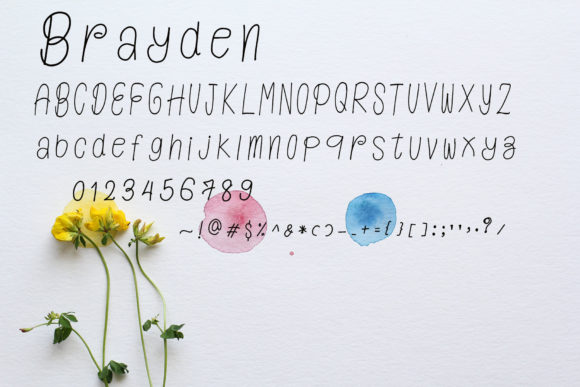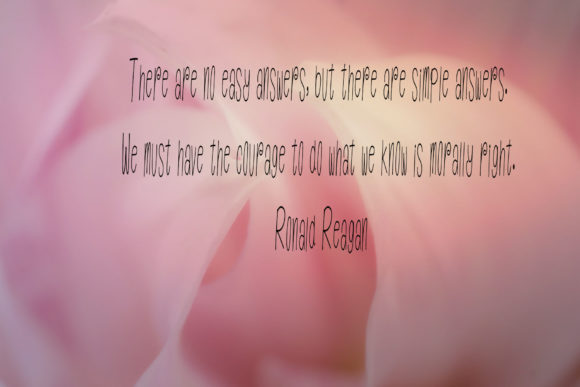
The Brayden Font: A Friendly and Versatile Companion for Your Creative Projects
I’ll never forget the moment I stumbled upon the Brayden font. I was working on a DIY project, pouring my heart and soul into creating beautiful, handmade cards for a special occasion. But as I sat in front of my computer, scrolling through font after font, I just couldn’t find the right one. That was until I discovered Brayden – a cute and casual handwritten font that instantly captured the friendly and approachable feel I was looking for.
An Honest Review: The Good, the Great, and the Quirky
What I Love About Brayden ✨
- ✅ Its incredibly friendly and approachable feel, perfect for creating a warm and inviting atmosphere in any design.
- ✅ The font’s versatility – it works beautifully for both digital and print projects, from social media graphics to handmade cards and DIY crafts.
- ✅ The unique character and subtle imperfections that give Brayden a delightfully human touch.
- ⚠️ While Brayden is a stunning font on its own, it may not be the best choice for very formal or professional projects, as its casual nature might not fit the tone.
- ⚠️ Some users might find the font’s friendly feel too playful for certain designs, so it’s essential to consider the project’s tone and audience.
The Story Behind Brayden: A Glimpse into Its Design Inspiration
While the true story behind Brayden’s creation remains a mystery, it’s easy to imagine that its designer was inspired by the warmth and personality of handwritten letters and notes. Perhaps they wanted to capture the essence of a friendly conversation, distilled into a beautiful and versatile font. Whatever the inspiration, Brayden has undoubtedly become a beloved companion for designers, crafters, and creative hobbyists around the world.
| Font Name | Brayden Font |
| Author | PJ Fonttein |
Q: What makes Brayden a great choice for DIY projects?
Brayden’s friendly and approachable feel makes it perfect for DIY projects, such as handmade cards, invitations, and crafts. Its unique character and subtle imperfections add a touch of personality to any design.
Q: Is Brayden suitable for digital and print projects?
Absolutely! Brayden works beautifully for both digital and print projects, from social media graphics to handmade cards and DIY crafts.
Q: Can I use Brayden in combination with other fonts?
While Brayden is stunning on its own, you can experiment with combining it with other fonts to create a unique look. Just be sure to balance the fonts harmoniously and consider the project’s tone and audience.